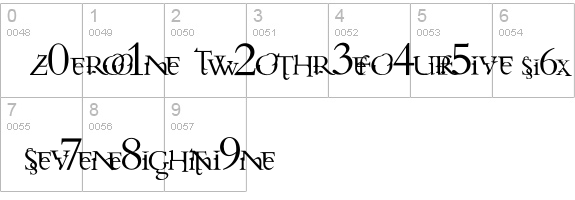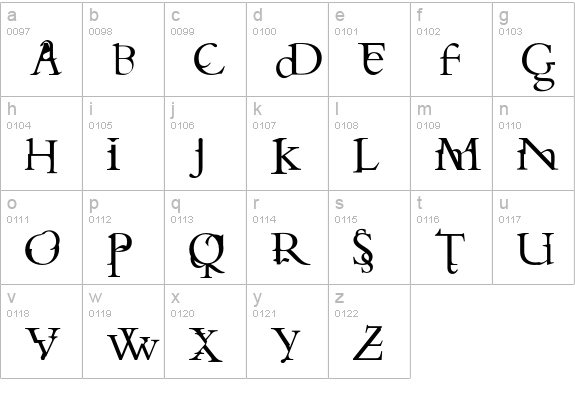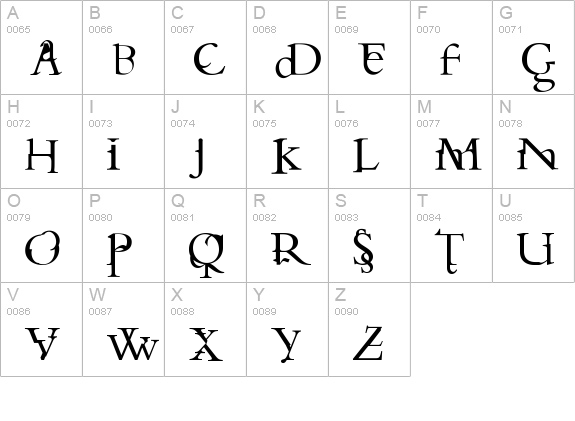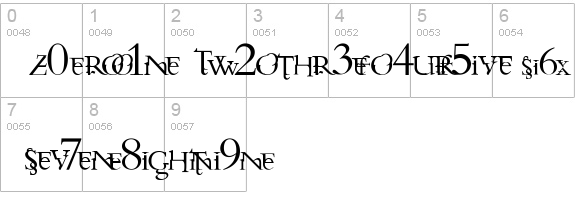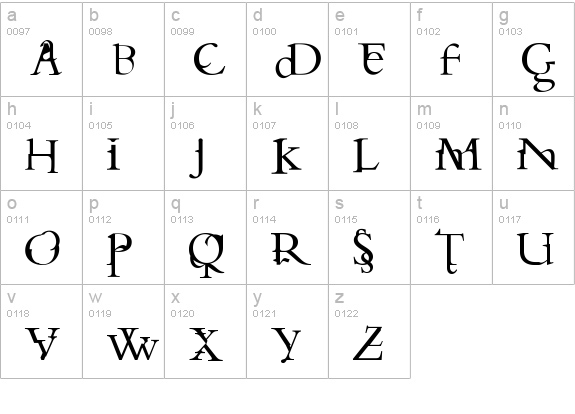
SkiTzo Font Details
Introducing SkiTzo font, a vibrant and charismatic typeface that exudes a playful and energetic vibe. With its unique blend of bold and curvaceous letterforms, SkiTzo adds a touch of whimsy and excitement to any design project. This font is the perfect choice for those looking to make a statement and break away from the conventional norms of typography. Its quirky and unconventional nature makes it a standout choice for headlines, logos, posters, and social media graphics. One of the best things about SkiTzo font is that it is free! Yes, you read that right. This eye-catching typeface is freely available to download at FontsMarket.com. Now you can add a touch of personality and creativity to your designs without having to spend a fortune on fonts. SkiTzo font is not only visually appealing but also highly versatile. Its legibility and readability make it suitable for a wide range of applications, from branding and advertising to packaging and web design. Whether you're working on a fun and lighthearted project or aiming to inject some vibrancy into a more serious design, SkiTzo font has got you covered. With its extensive character set and multiple weights, SkiTzo font offers endless possibilities for customization and experimentation. Let your imagination run wild as you play with different letter combinations, sizes, and colors to create truly unique and eye-catching designs. So why wait? Embrace the bold and unpredictable nature of SkiTzo font and let it breathe new life into your creative projects. Download this captivating typeface for free at FontsMarket.com and unleash your creativity like never before. Get ready to captivate your audience and make a lasting impression with SkiTzo font!